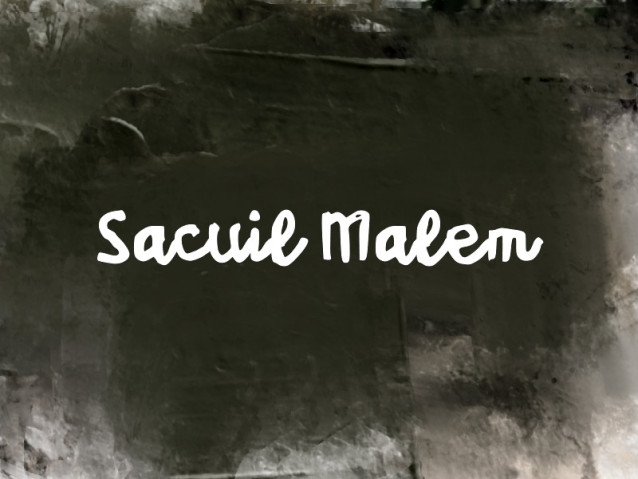
Sacuil Malem Font
Sacuil Malem Font is a simple and modern display font suitable for quotes, logos, headings, titles, and many more. Use it on any of your creative projects, and your designs will become outstanding!